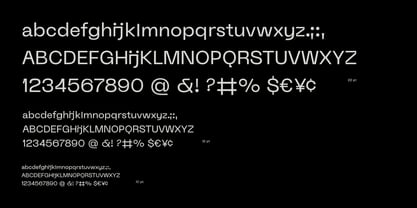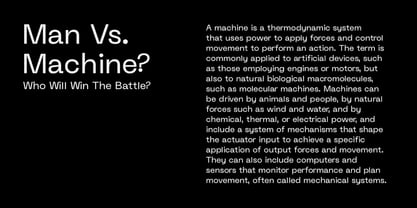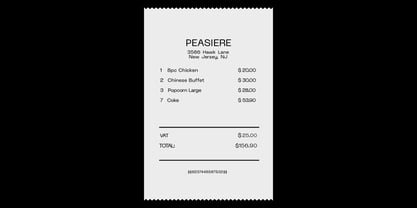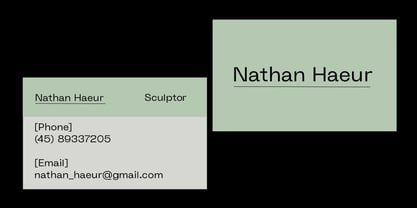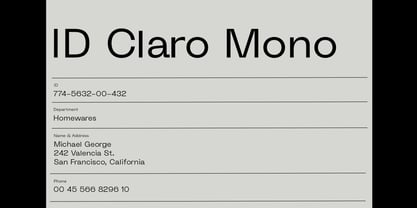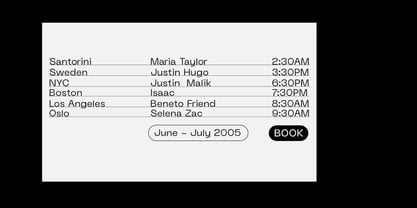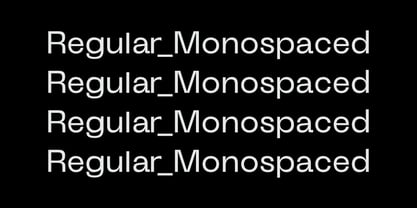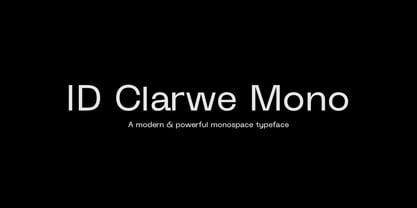
ID Clarwe Mono
by Ekaunik Dz
The ID Clarwe Mono Font Family was designed by Swati Bhatnagar and published by Ekaunik Dz. ID Clarwe Mono contains 1 styles. More about this family
Introducing Clarwe Mono, a modern & powerful typeface, with multilanguage support, that boasts of monospace type features. It's forms are clean, monospaced in feel with a geometric and rigid vibe to it. It communicates precision, innovation, and progress while giving the text a strong, mechanical personality. Well suited for technology brands, gaming graphics, science-fiction themes, and modern product designs
Designers: Swati Bhatnagar
Foundry: Ekaunik Dz